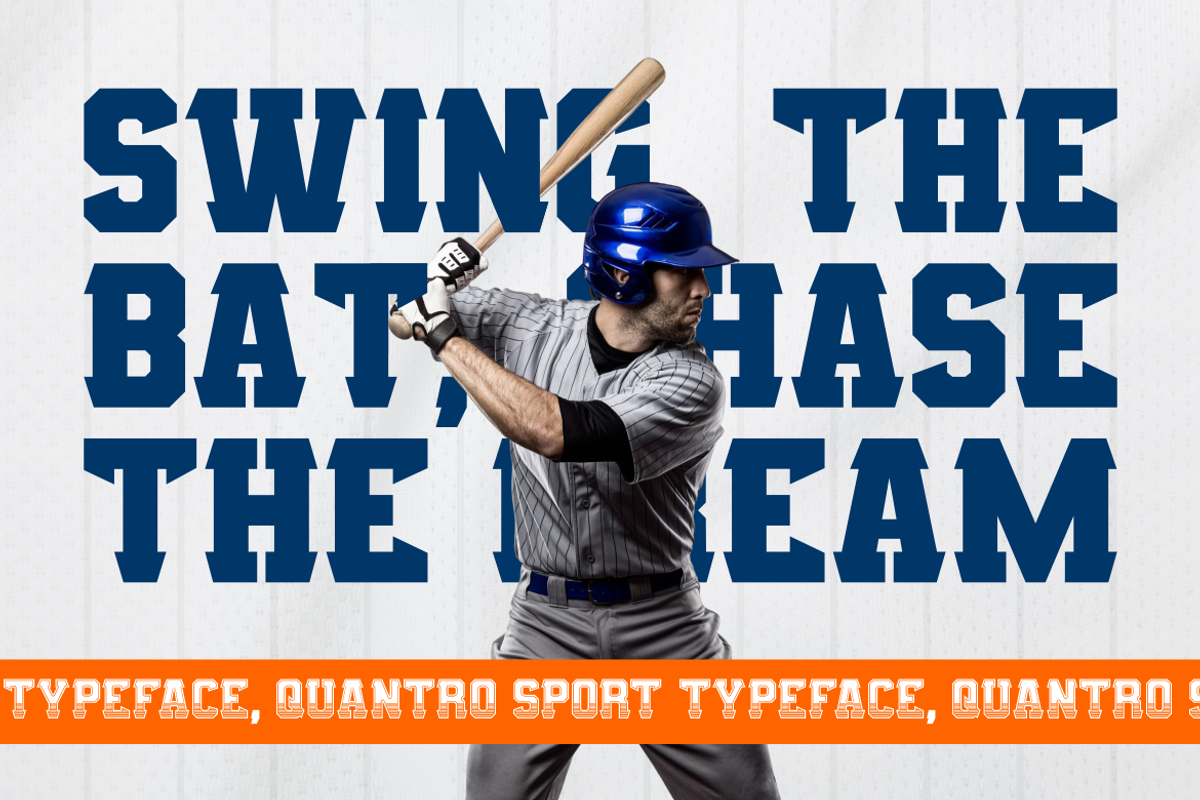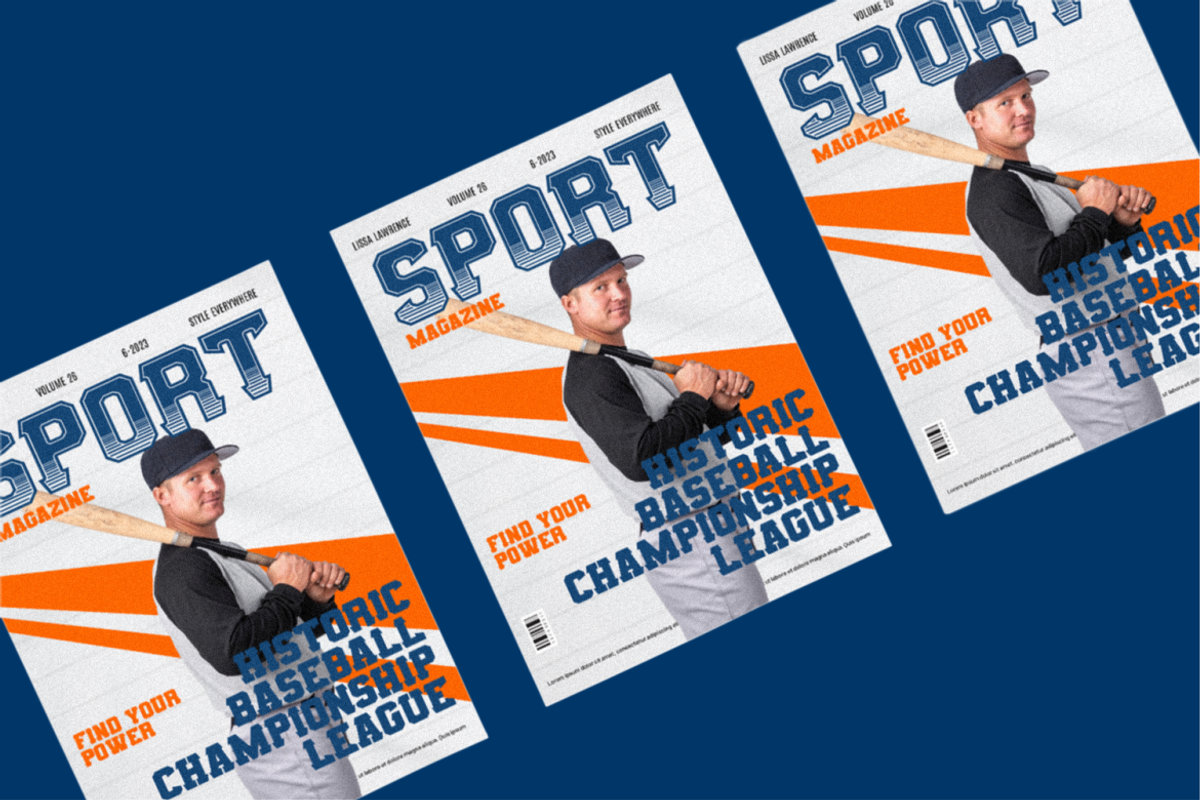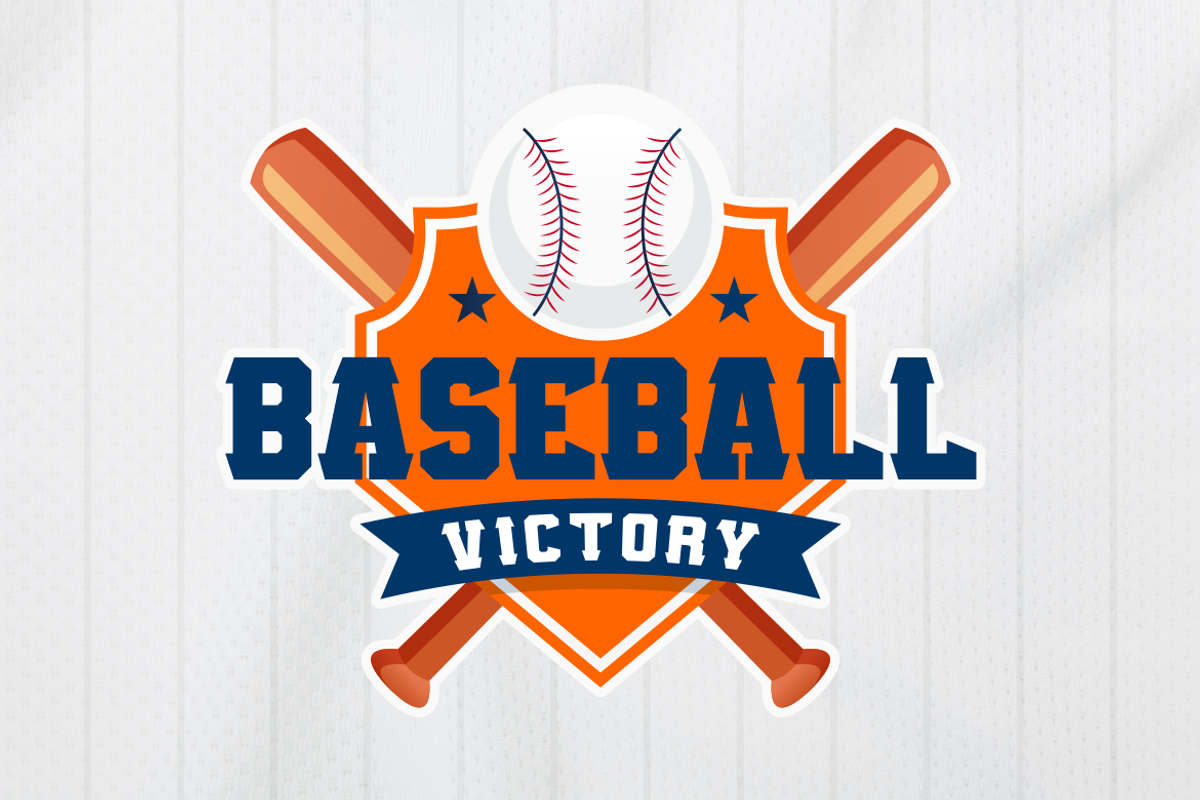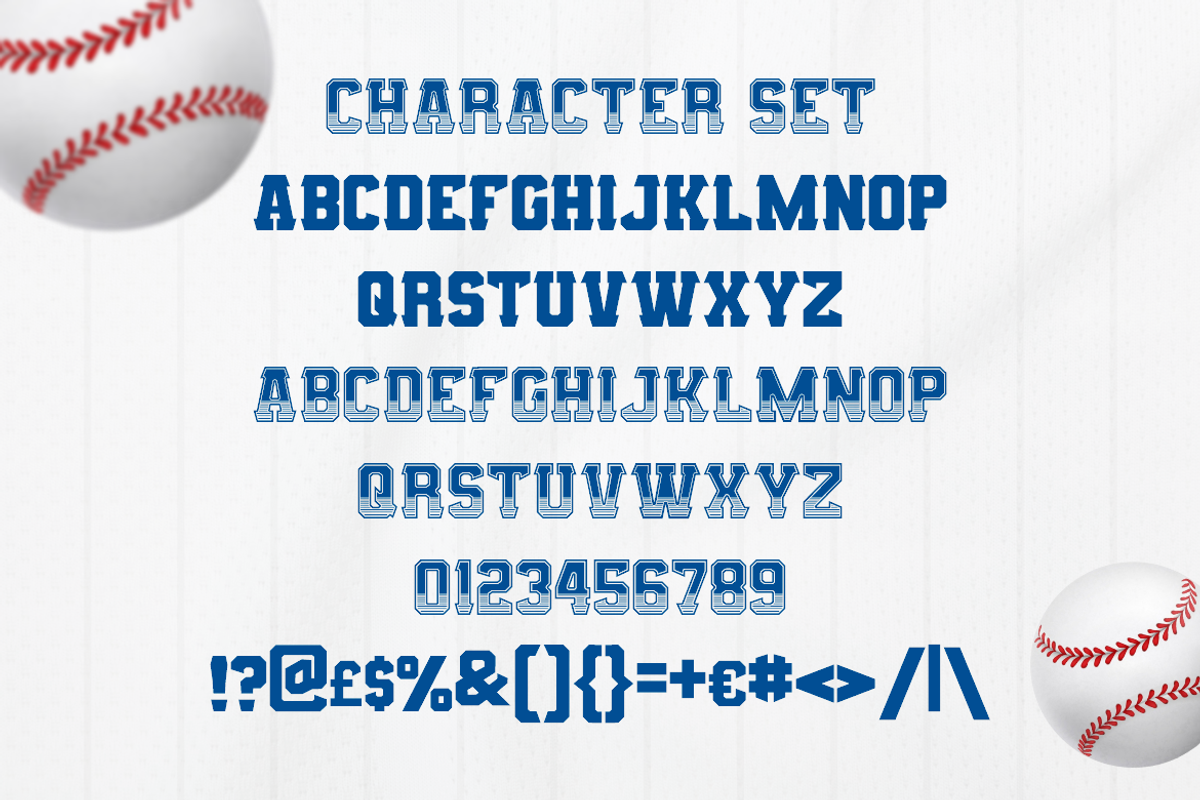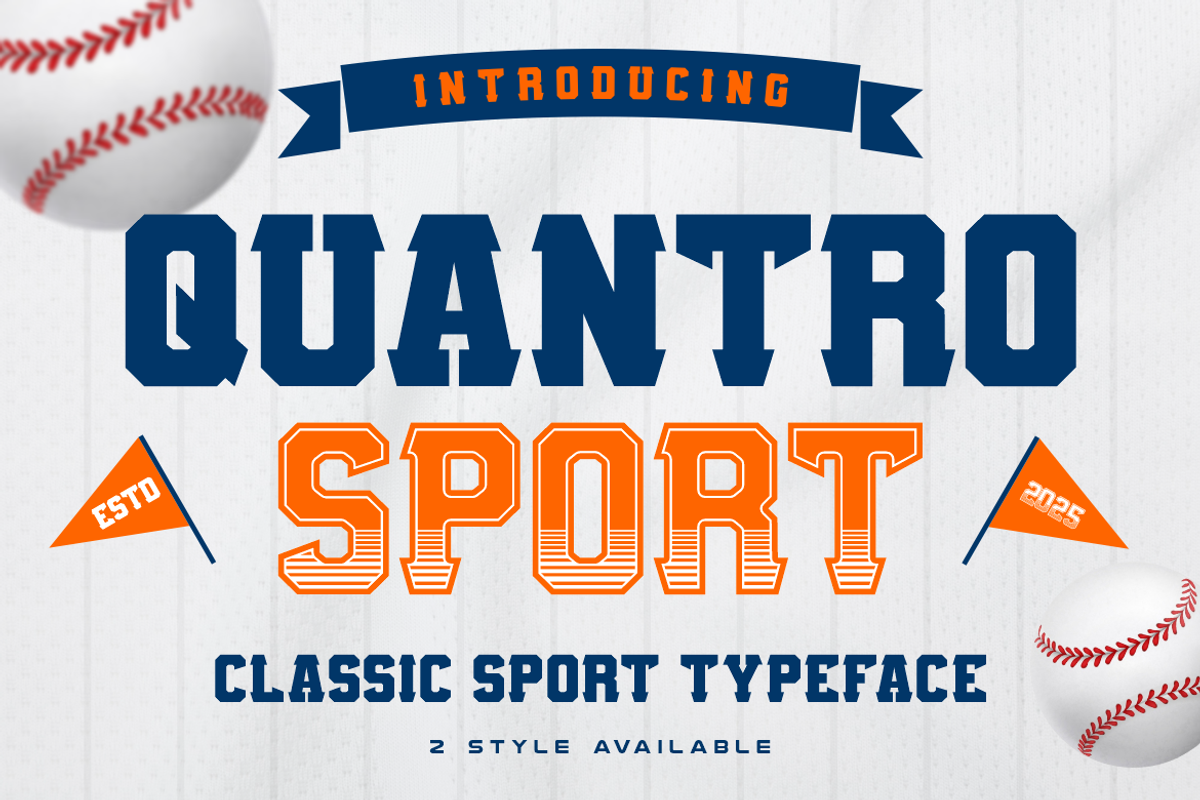
Quantro Sport Bold Classic Sport Fon
Quantro Sport is a bold, commanding display font built for competitive impact. This slab serif typeface embraces the traditional essence of American sports typography, echoing vintage baseball aesthetics with a modernized twist. The font offers two distinctive styles — solid and line-shadowed — making it versatile for both clean and dynamic layouts. Its angular forms, wide stance, and uppercase focus ensure that every letter punches with clarity and confidence, even from a distance. Whether you’re designing a championship banner, a retro jersey logo, or a fan-focused sports magazine, Quantro Sport delivers unmatched legibility and energetic flair.
Designed with athletic identity in mind, Quantro Sport is ideal for branding, posters, packaging, and editorial headlines in the sports, fitness, or varsity merchandise sector. Its geometric precision and assertive tone make it especially suited for baseball-themed graphics, gym signage, and youth sports clubs. Use it to craft motivational slogans, bold cover designs, or merchandise that needs to embody strength, teamwork, and tradition. The typeface includes numerals, punctuation, and multilingual support for wide usage scenarios.